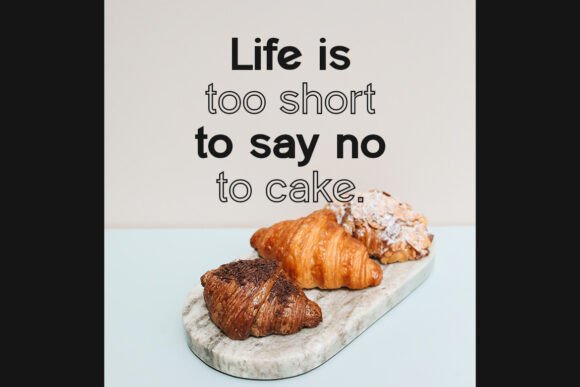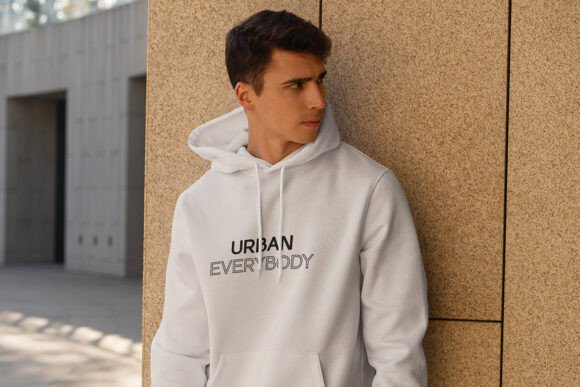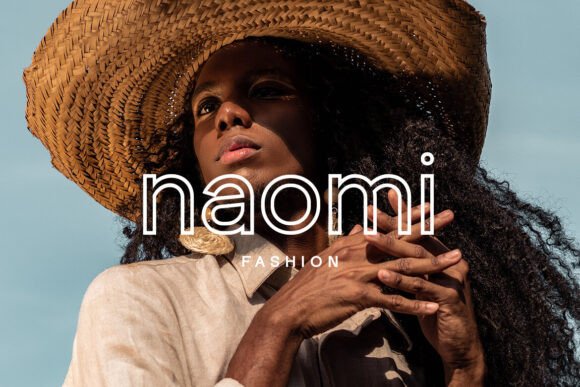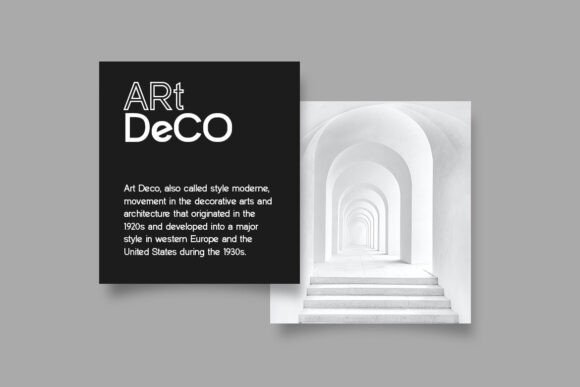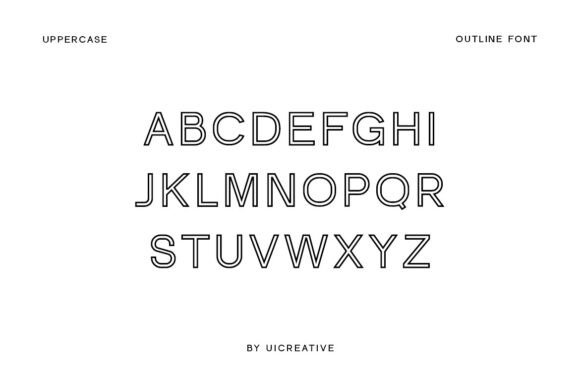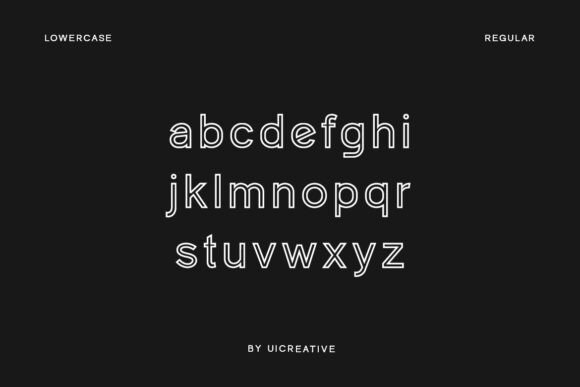
The Ultimate Guide to Expatriate Font: Elevate Your Designs with Elegance
I’ll never forget the time I was working on a branding project for a luxury fashion client. I had spent hours perfecting the logo, but something felt off. The font I had chosen just wasn’t giving me the sophisticated, high-end vibe I was going for. That’s when I stumbled upon Expatriate Font, a modern sans serif font that completely transformed my design. In this article, I’ll share my experience with Expatriate Font, its features, and how to make the most of it in your designs.
What is Expatriate Font?
Expatriate Font is a modern sans serif font that exudes elegance, class, and style. Its clean lines, subtle curves, and sophisticated feel make it perfect for a wide range of projects, including signatures, stationery, logos, wedding designs, typography quotes, magazine or book covers, website headers, branding, and more. This font is particularly well-suited for fashion-related branding or editorial design, as it effortlessly conveys both masculine and feminine qualities.
- ✨ Elegant and sophisticated feel
- ✅ Highly versatile and adaptable
- 💯 Beautifully crafted with attention to detail
- 🎨 Perfect for both digital and print designs
- 🤔 Some characters may require manual kerning for optimal spacing
- ⚠️ Limited availability of certain OpenType features in certain software
Expatriate Font was designed with the modern creative in mind. Its creator, a talented type designer, aimed to craft a font that would be both elegant and versatile. Inspired by the urban landscape and the world of fashion, Expatriate Font is the perfect blend of style and sophistication.
- Q: Is Expatriate Font suitable for body text?
- A: While Expatriate Font is primarily designed for display use, it can be used for body text in certain contexts, such as short paragraphs or captions.
| Font Name | Expatriate Font |
| Author | uicreativenet |